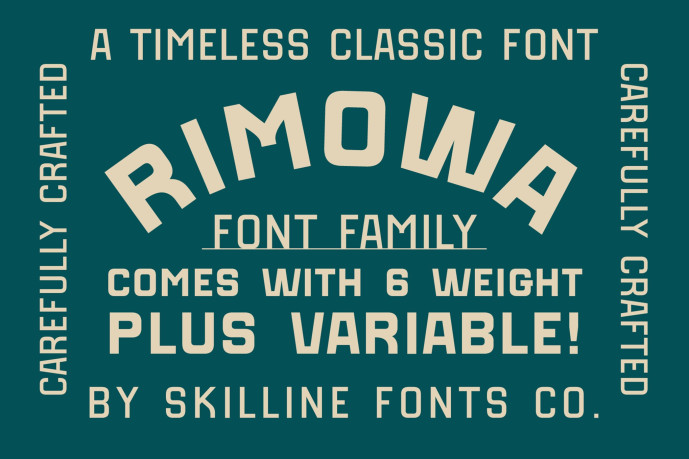
Rimowa Font Family is modern sans-serif display typeface inspired by industrial labeling, military stencils, and classic transport typography. Its solid geometry, squared curves, and precision-cut structure deliver a clean, confident, and utilitarian presence. Designed for creators who want a strong, contemporary, and functional aesthetic,.